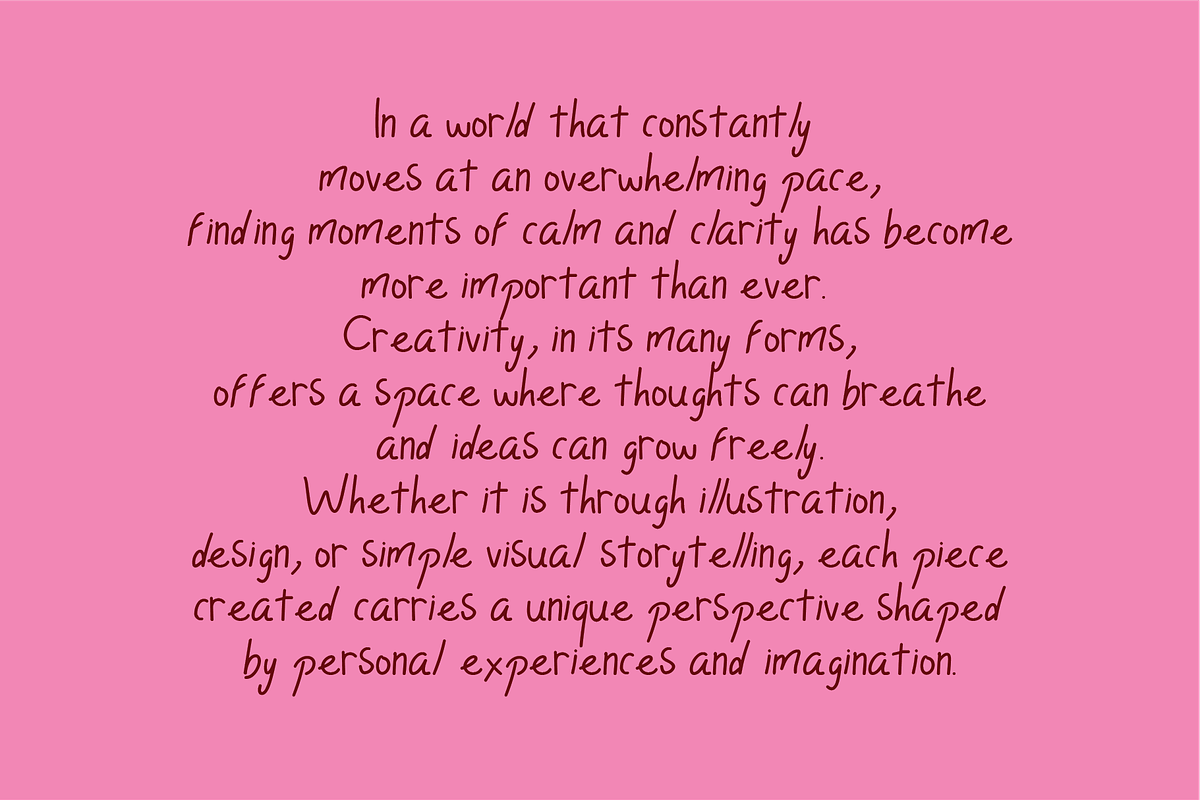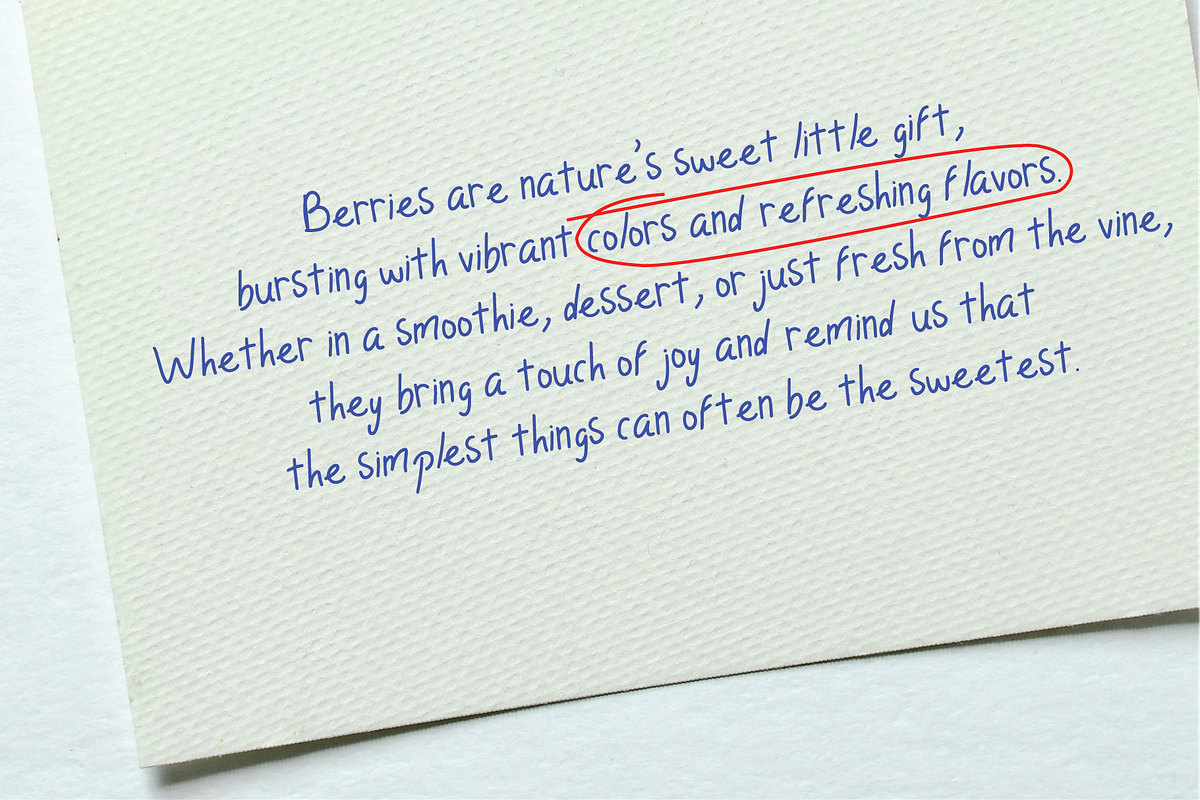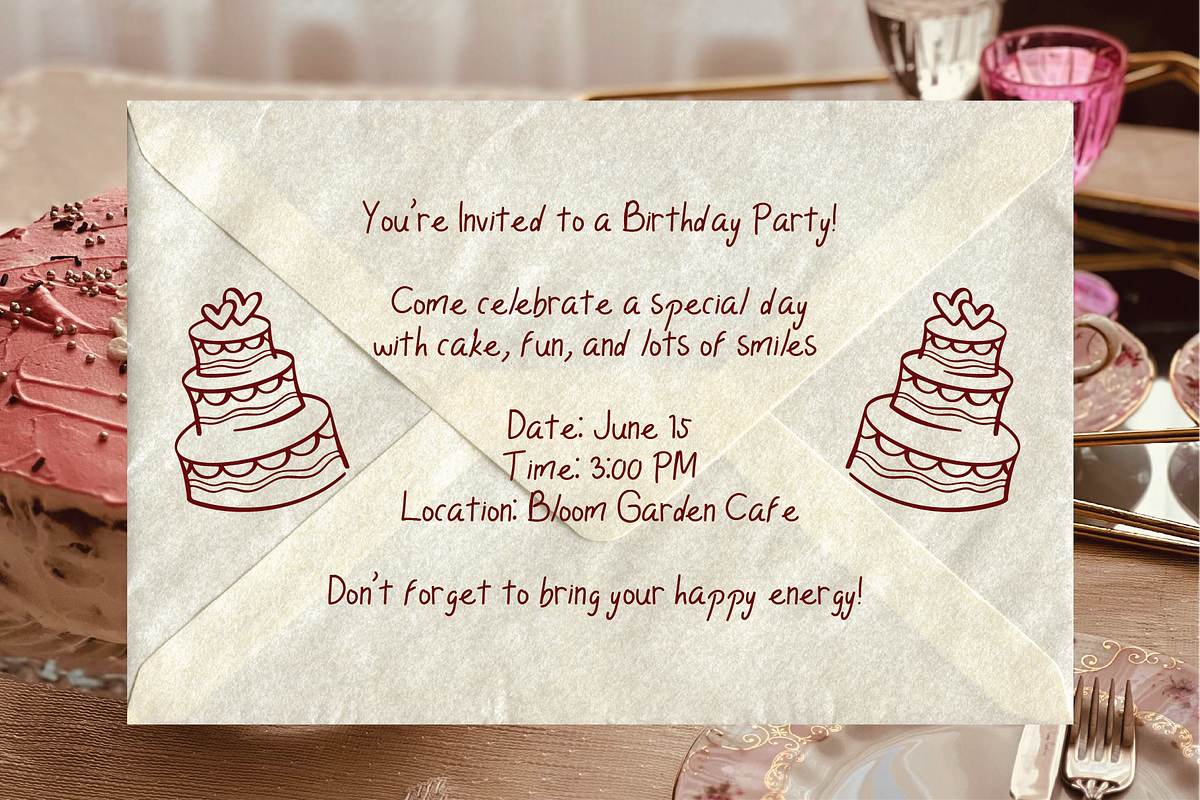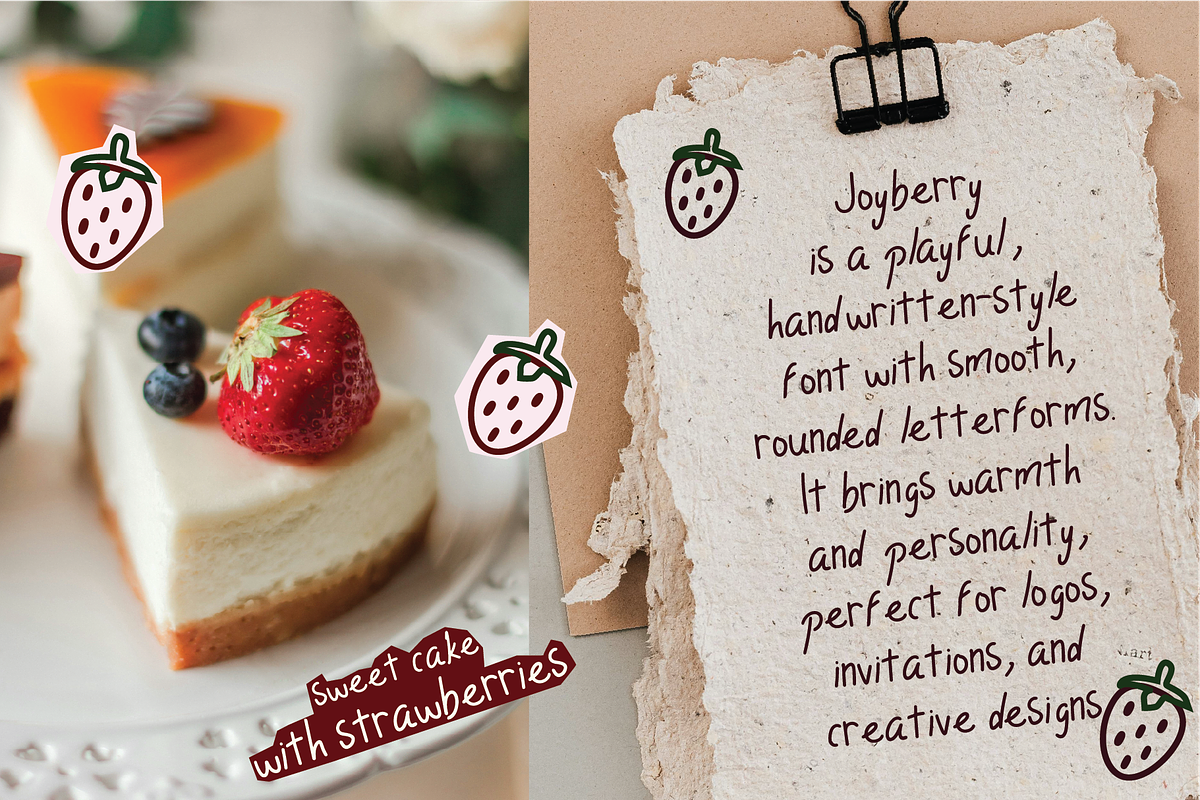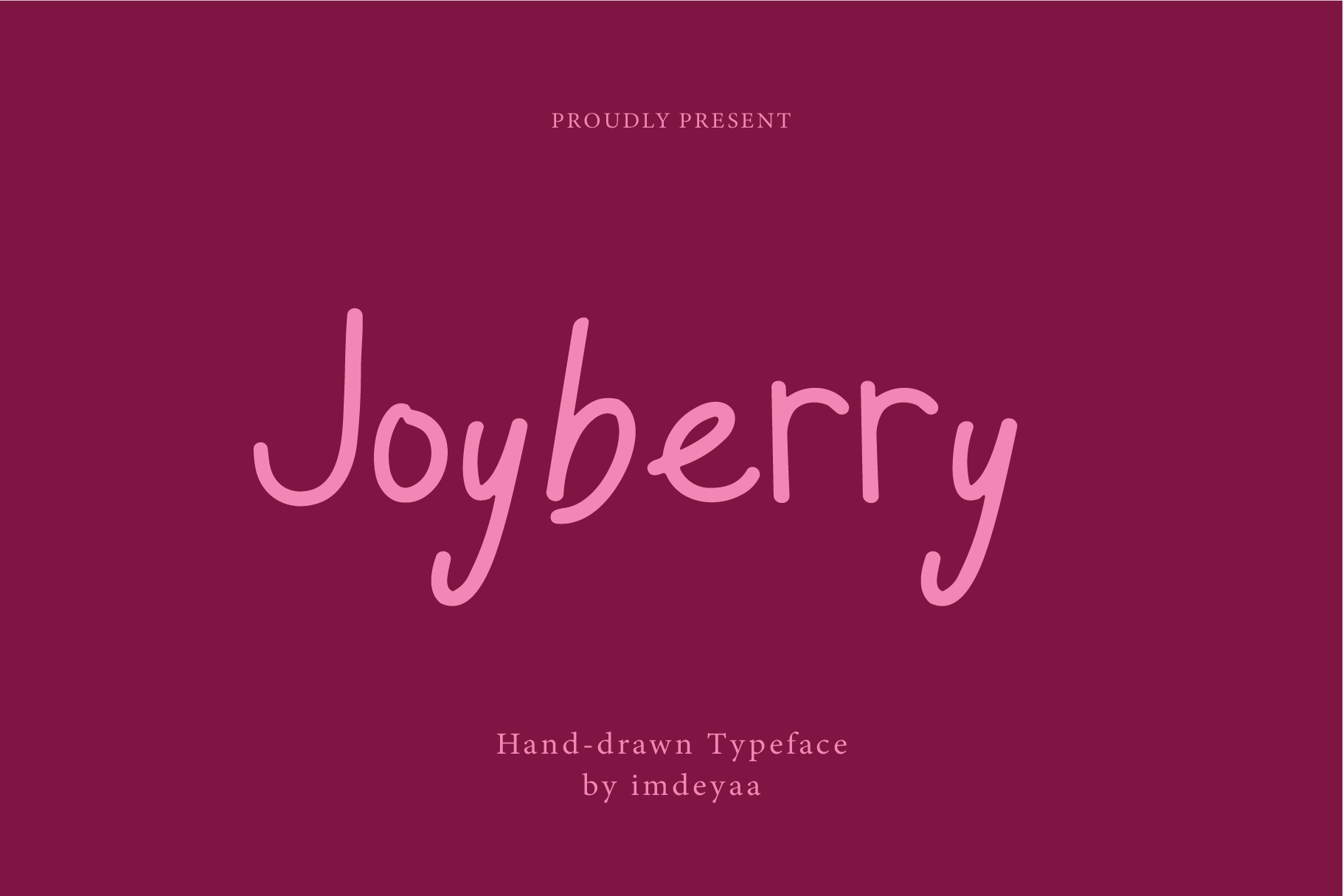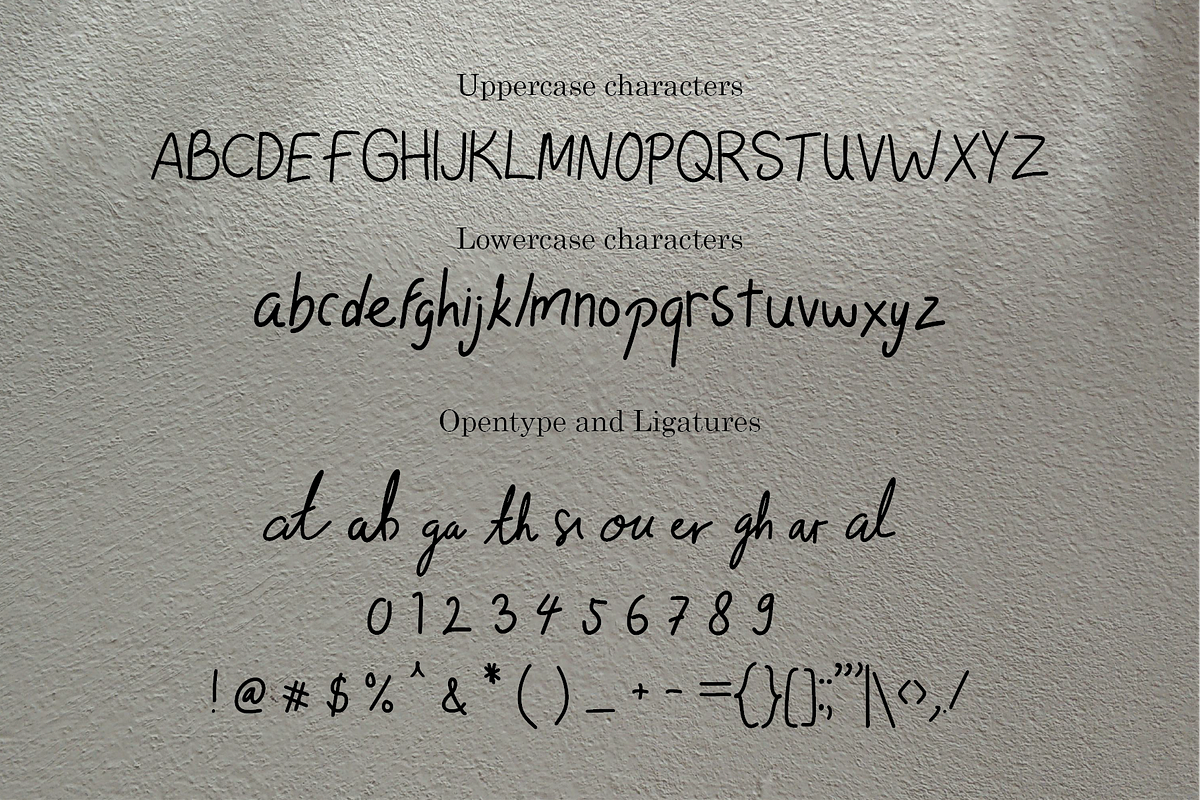
Joyberry - Handwritten Font
Joyberry is a charming handwritten font that brings a touch of warmth and personality to your designs. With its smooth strokes and playful curves, Joyberry captures the natural flow of handwriting, making it perfect for projects that need a personal and friendly feel.